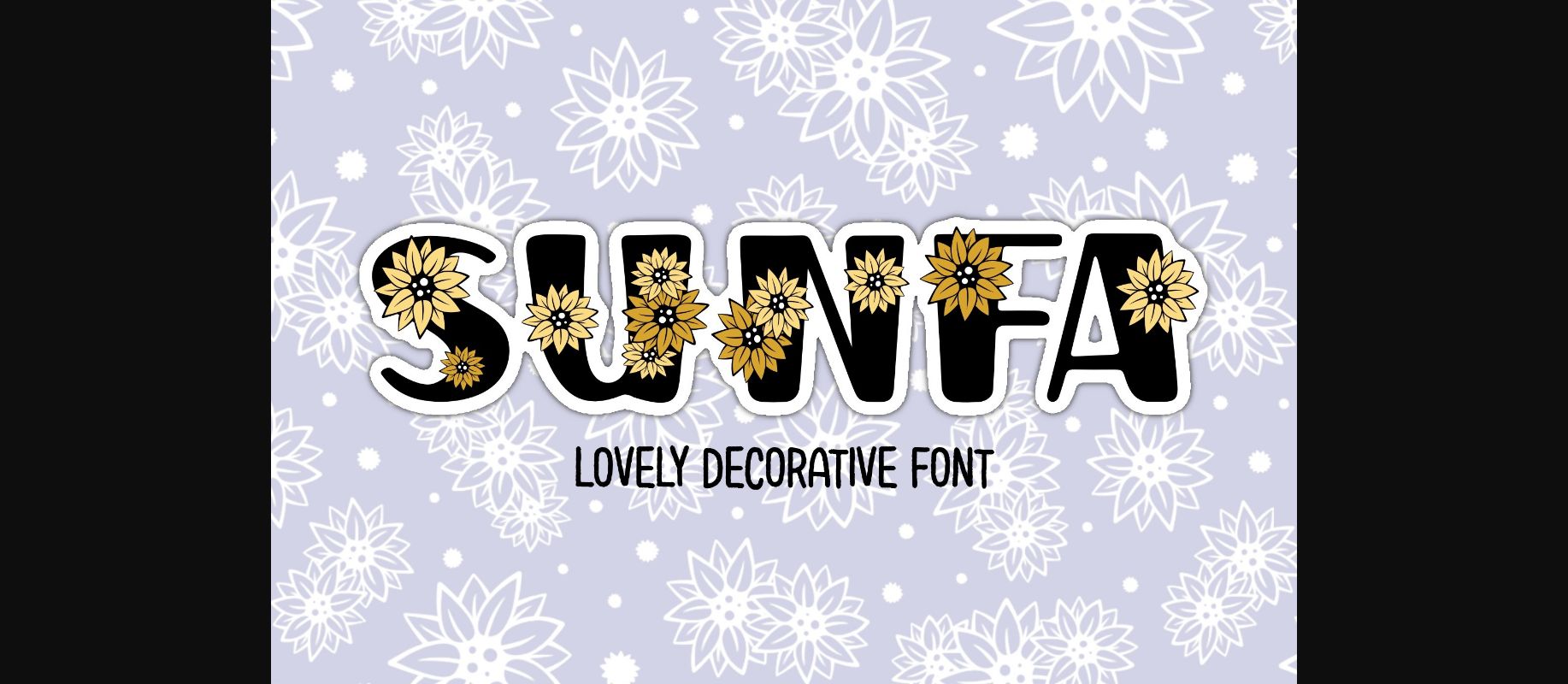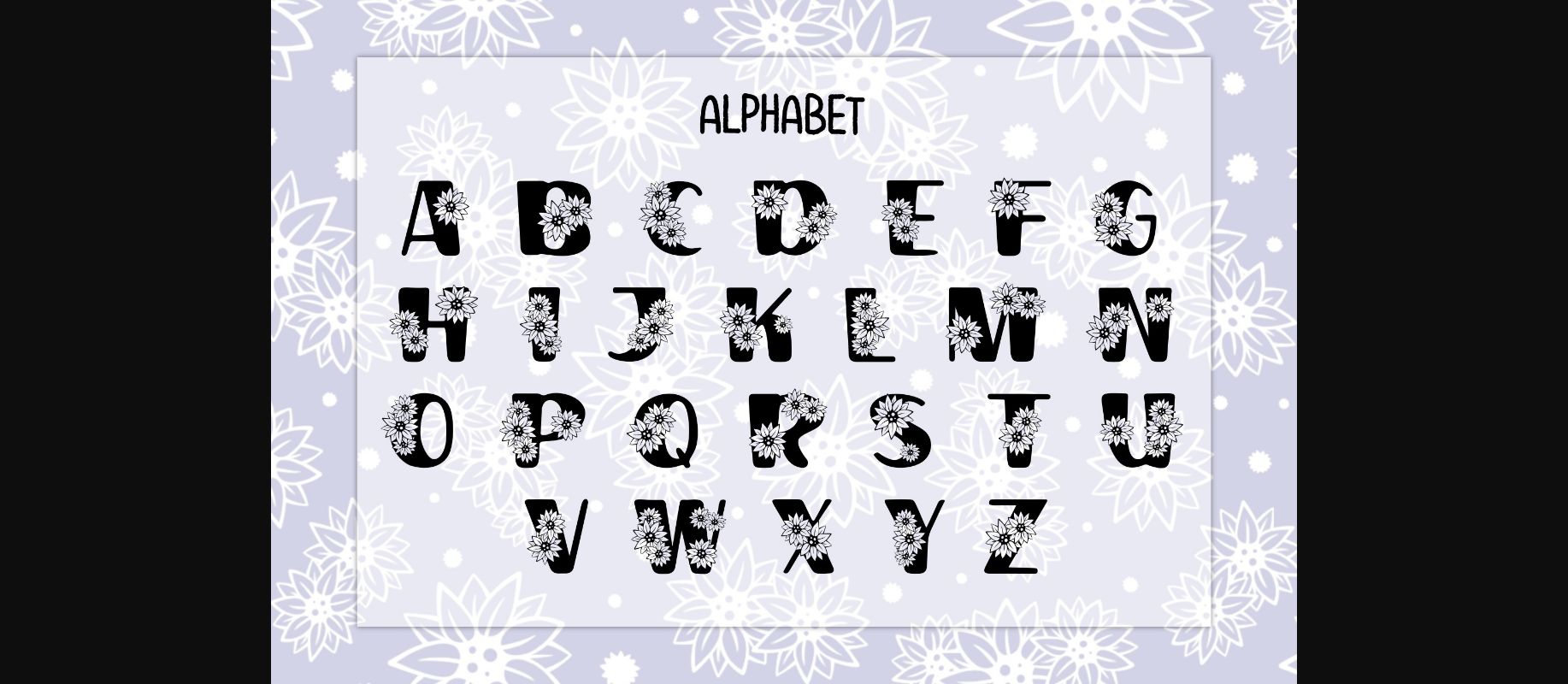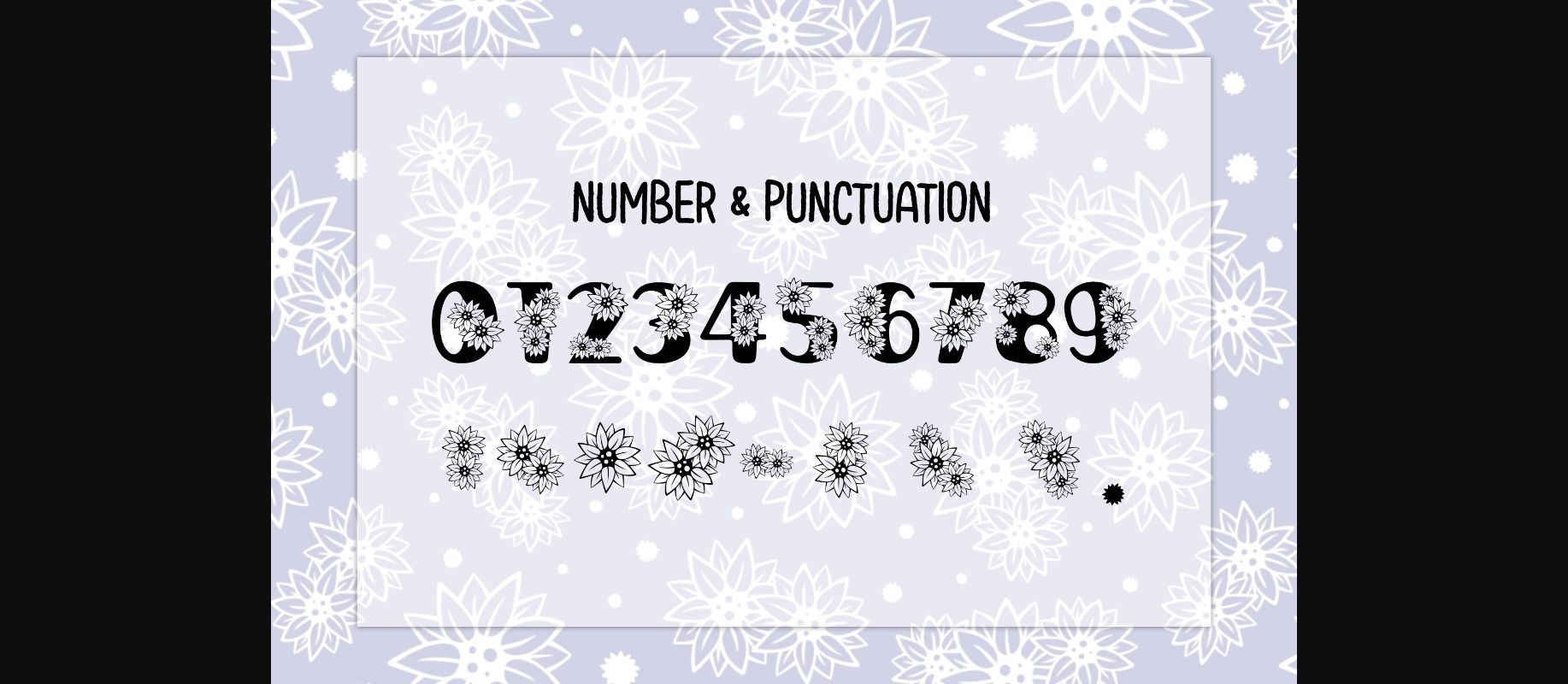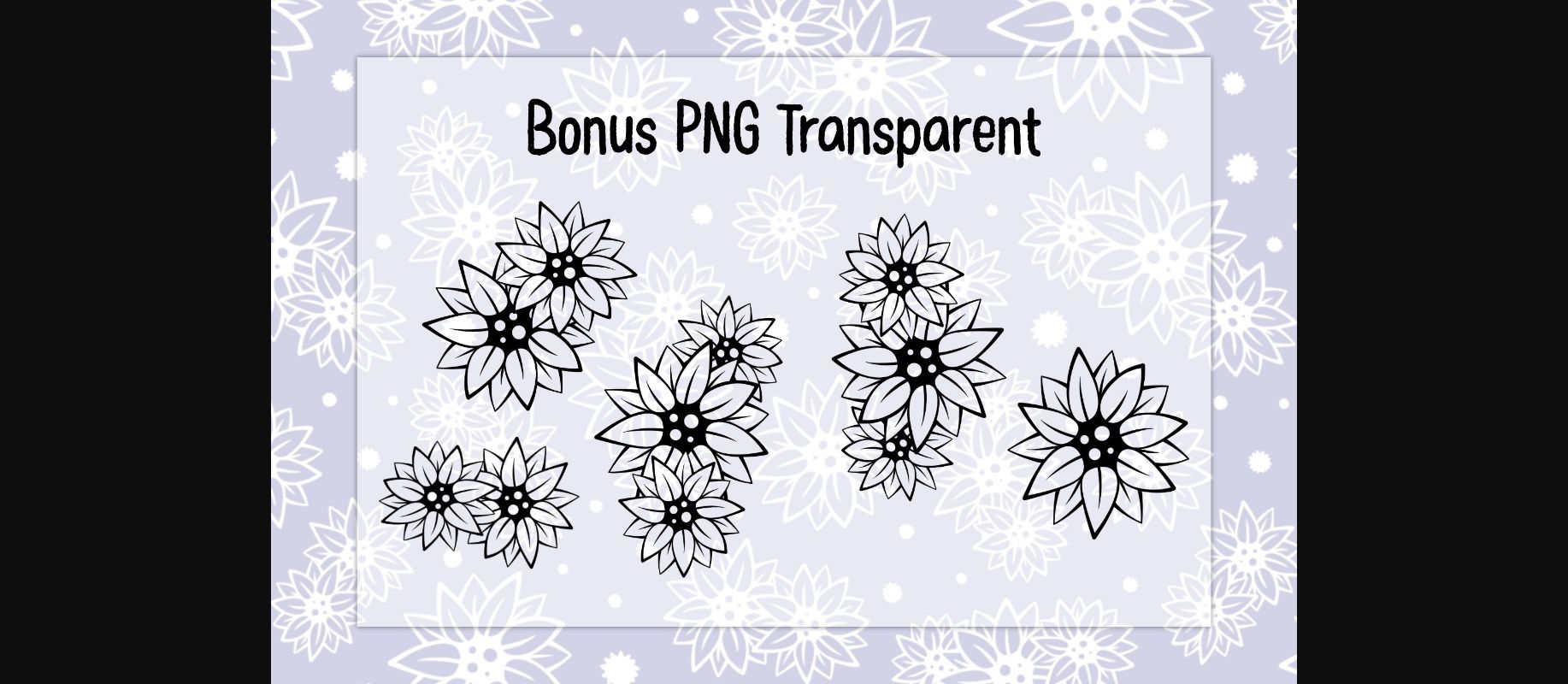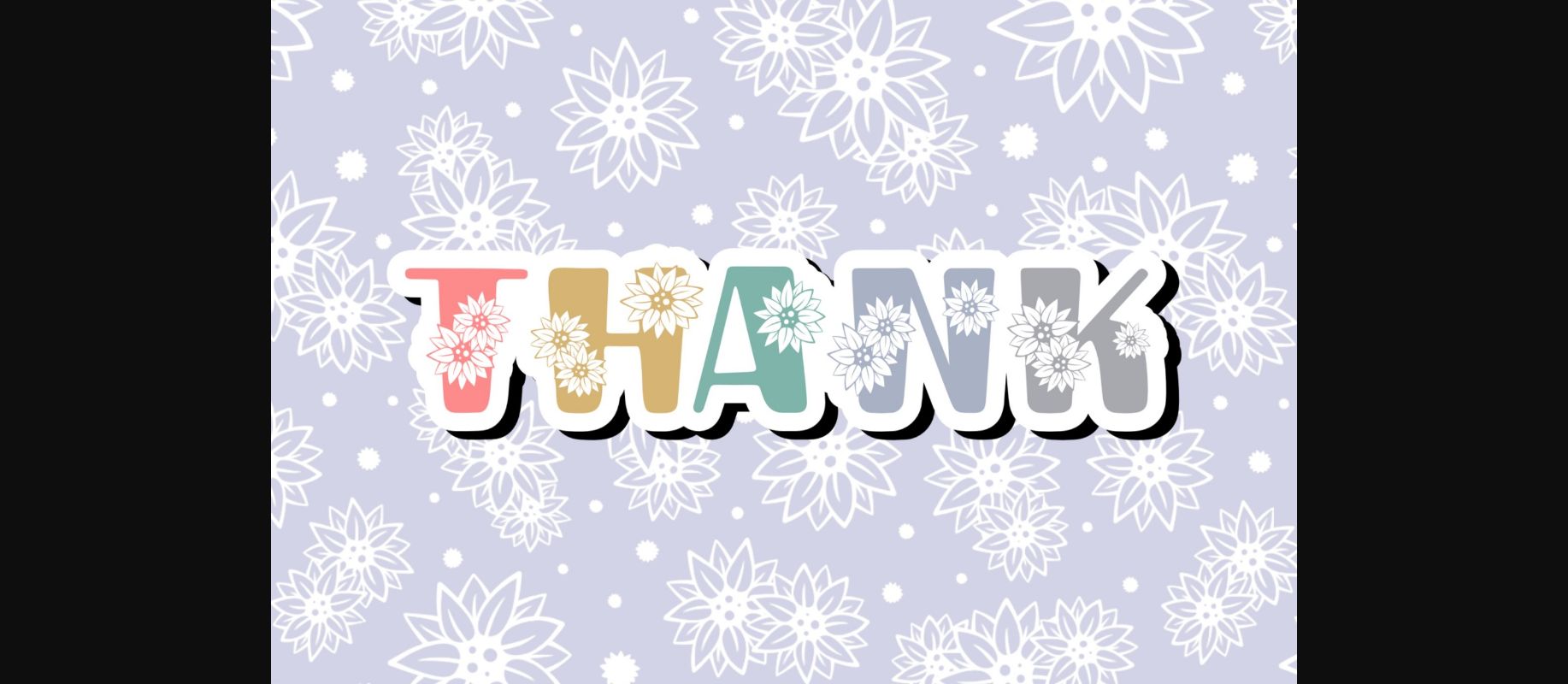
Sunfa Font
About Sunfa Font
Sunfa is a lovely decorative font. This font is the perfect fit for all of your logos, branding, social media, crafty DIY projects, and much more!